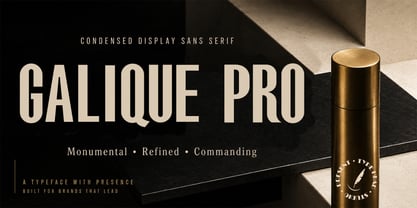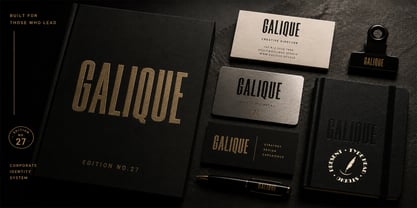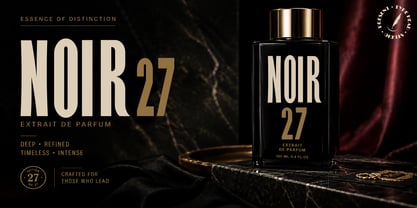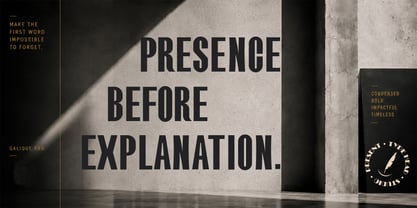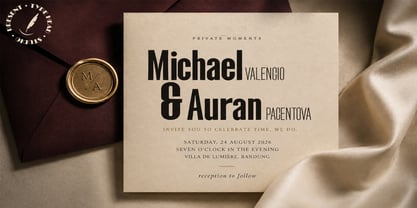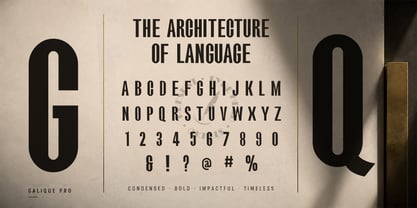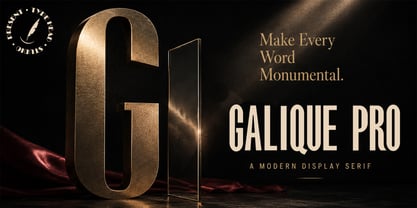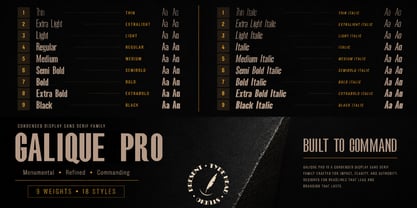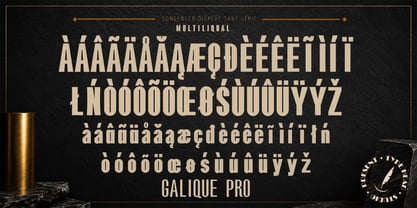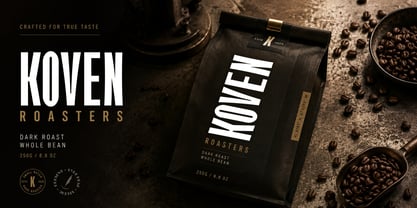
Galique Pro
von Typehead Studio
Die Schriftfamilie Galique Pro wurde von Gatot Triardi Pramaji entworfen und von Typehead Studio veröffentlicht. Galique Pro enthält 18 Stile und Familienpaketoptionen. Mehr über diese Familie
Galique Pro is a bold condensed display typeface designed to make an immediate impact. With its tall, narrow structure and distinctive letterforms, it embodies confidence, modernity, and expressiveness. Perfect for headlines that demand attention, Galique Pro excels in various applications including branding, editorial design, posters, packaging, advertising, fashion, sports graphics, social media, and cinematic titles. Its condensed proportions enable designers to craft powerful compositions in limited spaces, while its unique personality ensures that every word remains visually memorable. The complete family features 18 styles, ranging from Thin to Black, each accompanied by a matching Italic. This extensive range allows designers to transition from elegant, refined typography to bold, high-impact statements—all within one cohesive family. Galique Pro also offers stylistic alternates, providing distinctive alternate forms for selected characters, which adds an extra layer of personality and flexibility for creating logos, headlines, and custom typographic compositions.
Key features include:
• 18 styles: 9 weights + 9 matching Italics.
• Weights: Thin, ExtraLight, Light, Regular, Medium, SemiBold, Bold, ExtraBold, and Black.
• Matching Italic styles across the complete weight range.
• Stylistic Alternates.
• Extensive Latin language support.
• Carefully crafted spacing and kerning
• OpenType features.
• Ideal for display typography and high-impact
visual communication From refined fashion headlines to striking poster typography, Galique Pro is crafted for projects that need to be seen, remembered, and recognized.
Designer: Gatot Triardi Pramaji
Foundry: Typehead Studio